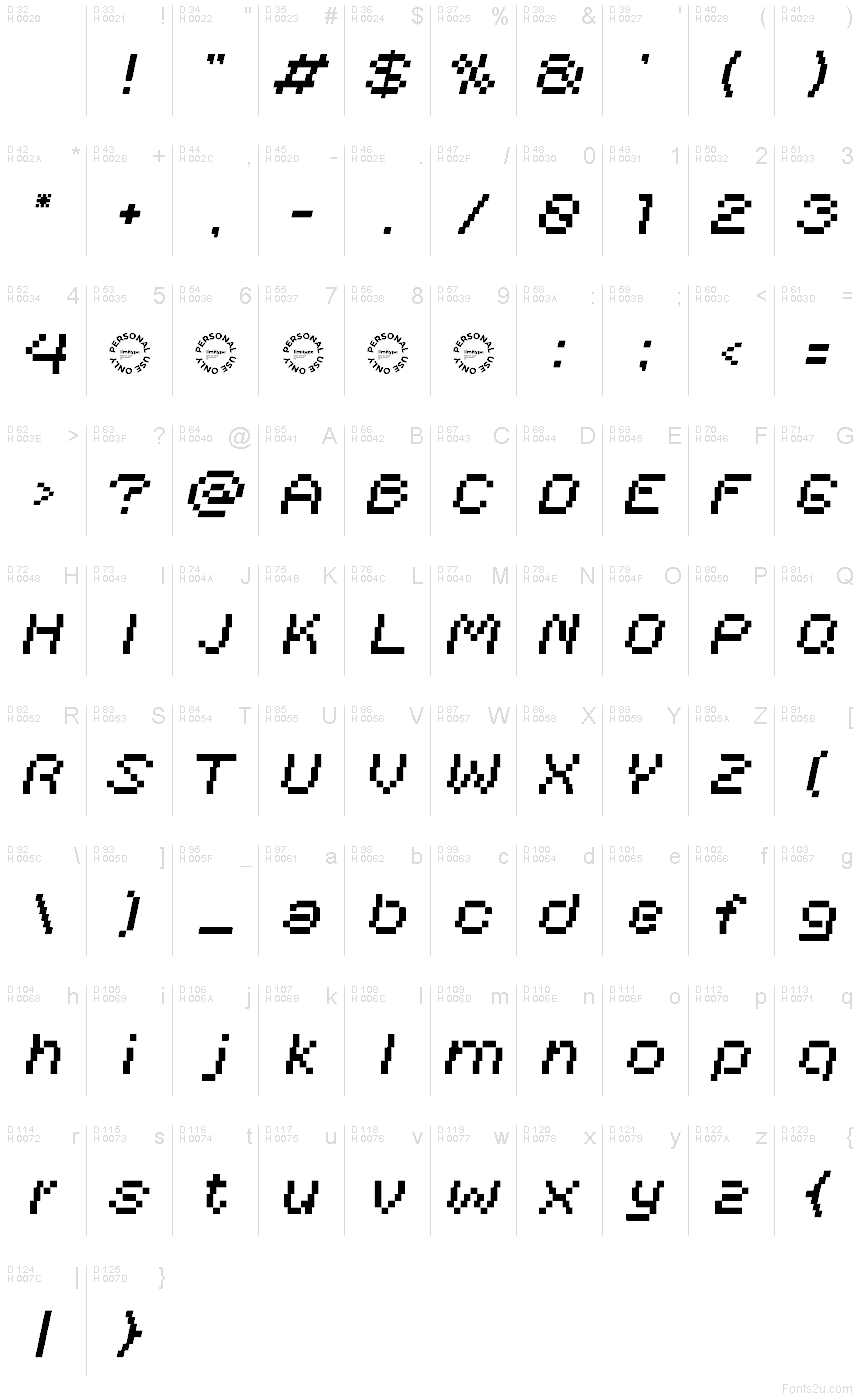
Kospix Demo Italic
Kospix Italic font by Limitype is a free digital pixel display typeface that pushes classic 8‑bit lettering into fast‑forward. Each character is built from chunky square pixels, then tilted into motion so your words feel like they’re racing across an old CRT screen. The italic angle keeps the texture crunchy but never cluttered, giving the whole Kospix family a bolder, more energetic voice.
Using Kospix Italic, your titles and logos snap into focus on retro game UI, esports branding, streaming overlays, synthwave posters, and pixel‑art zines. This free font also shines on stickers, badges, and YouTube thumbnails where you want low-res grit with high-impact attitude. Try pairing Kospix Italic for headlines with a clean monospaced sans for body text, and keep it big so every pixel block hits like a tiny, glowing tile.